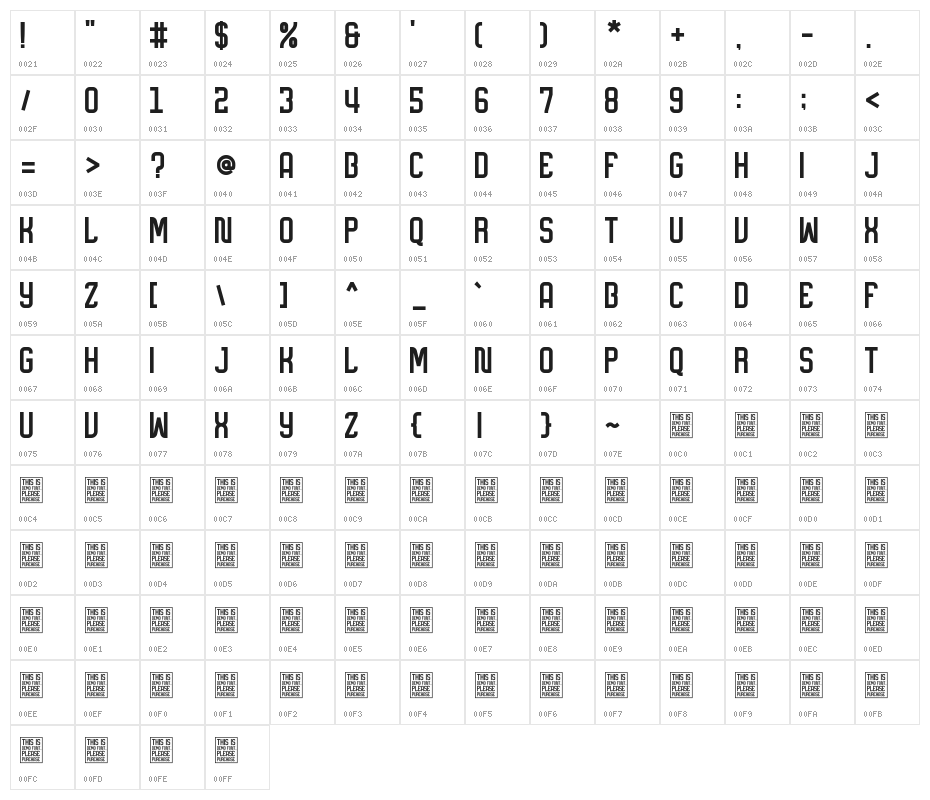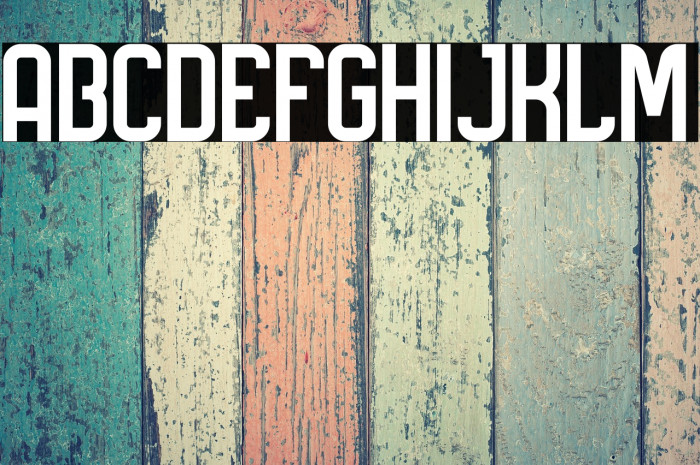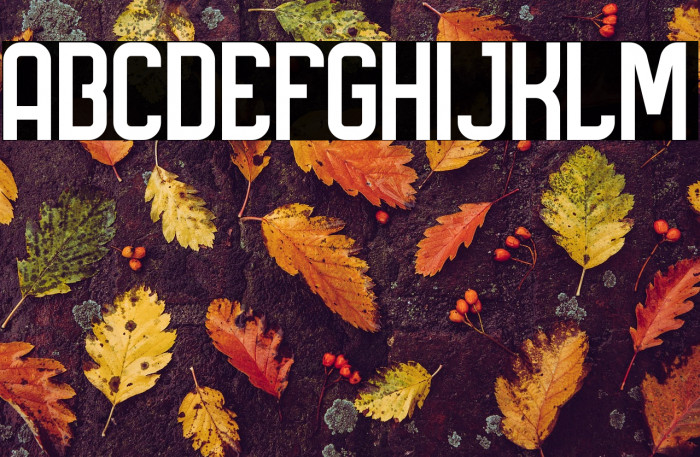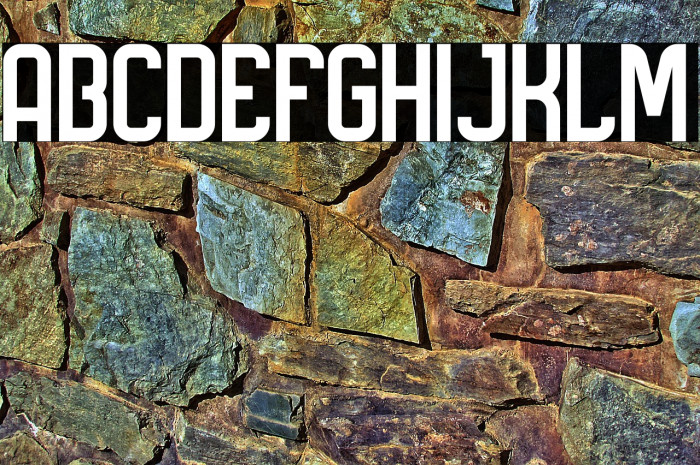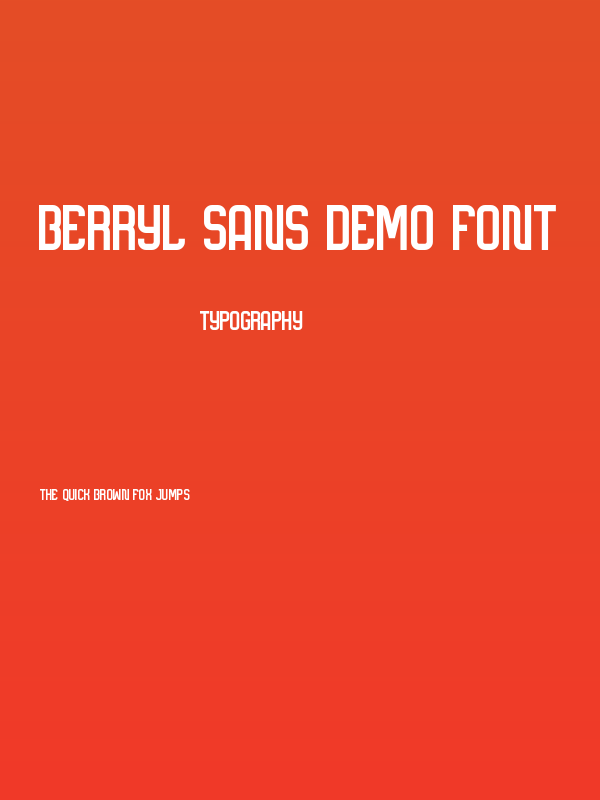
Berryl Sans DEMO font Font
Berryl Sans DEMO font Description
This font features a bold and modern sans-serif design with clean, straight lines and a geometric structure. The uppercase and lowercase letters maintain a consistent height, giving a uniform appearance. The characters are slightly condensed, which allows for efficient use of space without compromising readability. The numbers are clear and distinct, matching the style of the letters. Special characters are included, maintaining the same bold and structured aesthetic. This font is versatile, suitable for various design projects that require a contemporary and impactful look.
| Proposed Projects | Ideal for branding, advertising, headlines, and digital media where a strong, modern presence is desired. |